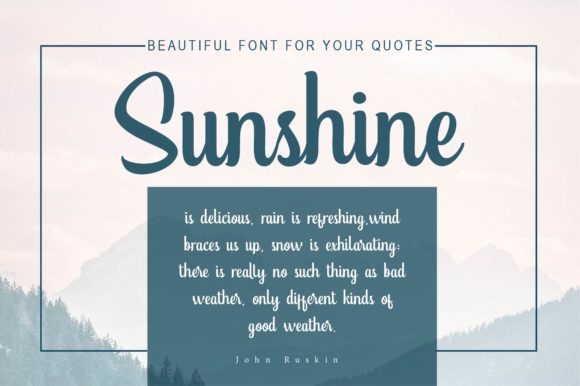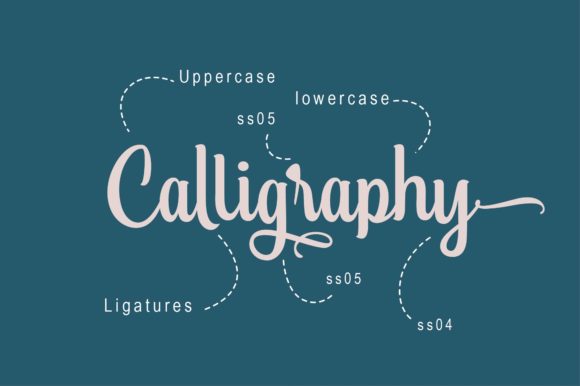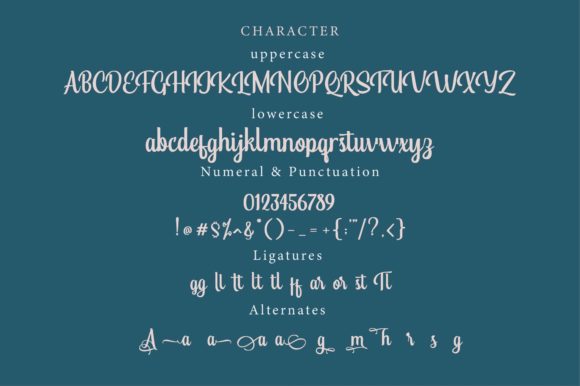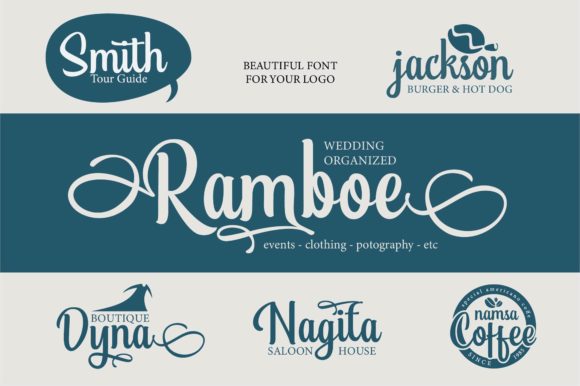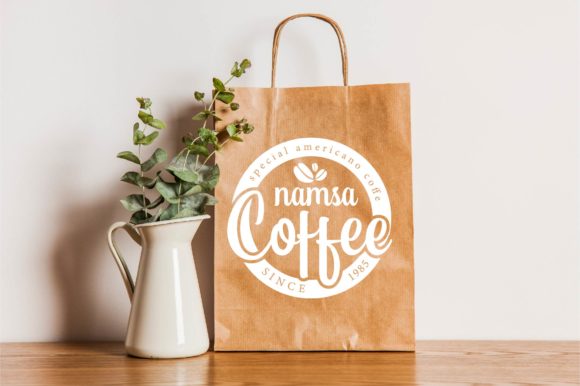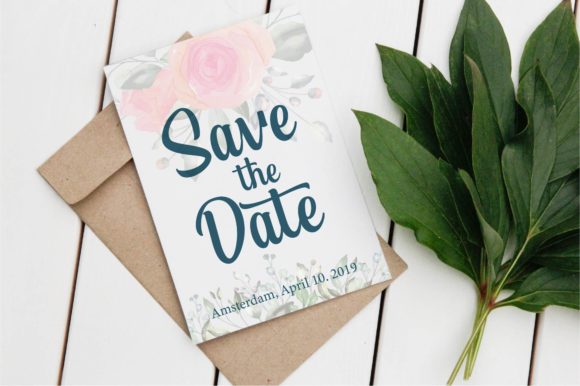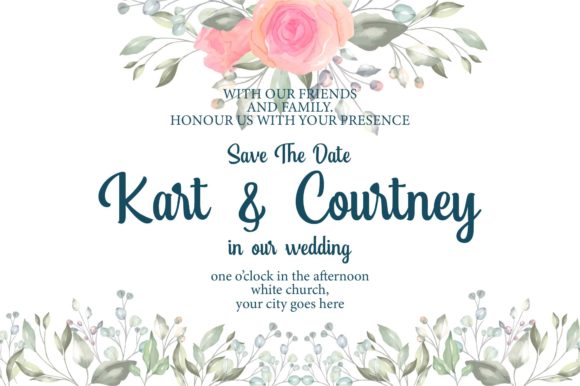
Anggie Font
About Anggie Font
Anggie is a hand lettering typeface that comes with a set of beautiful extras. It can be used for various purposes such as headings, logos, invitations, t-shirt designs, greeting cards, posters, labels, book covers, brochures and much more.